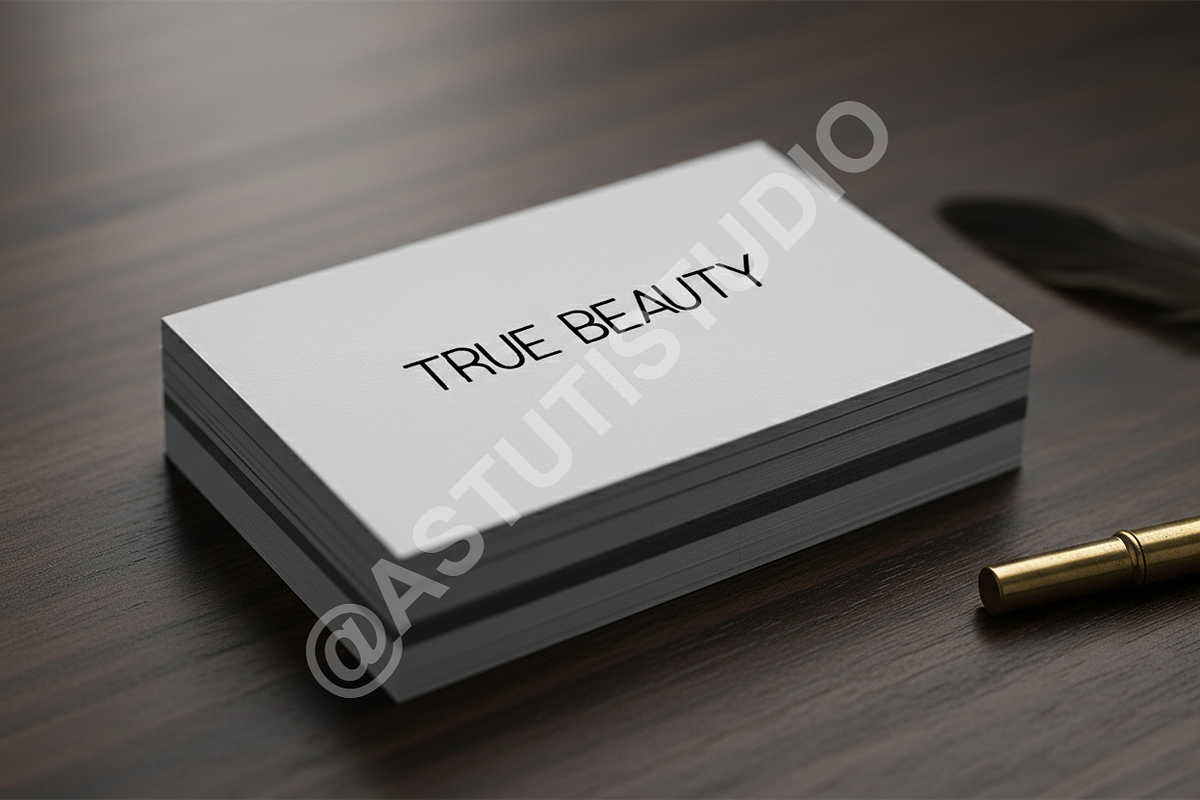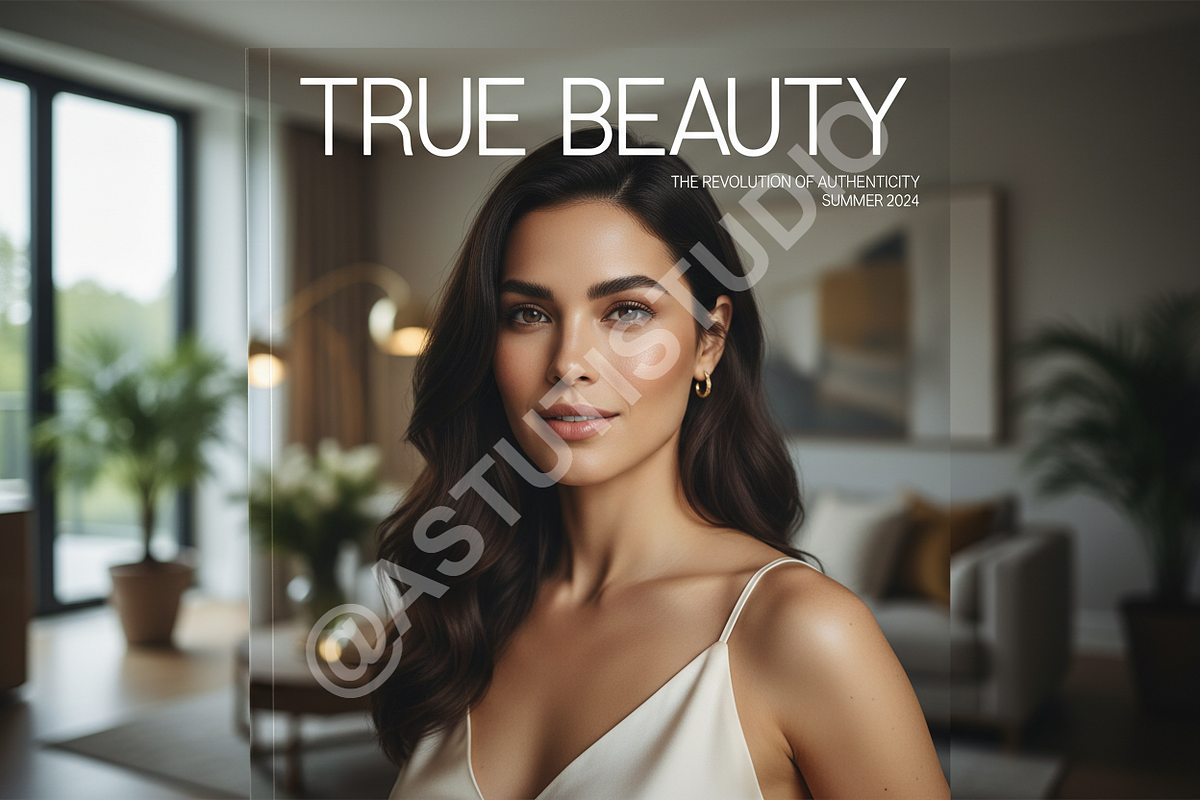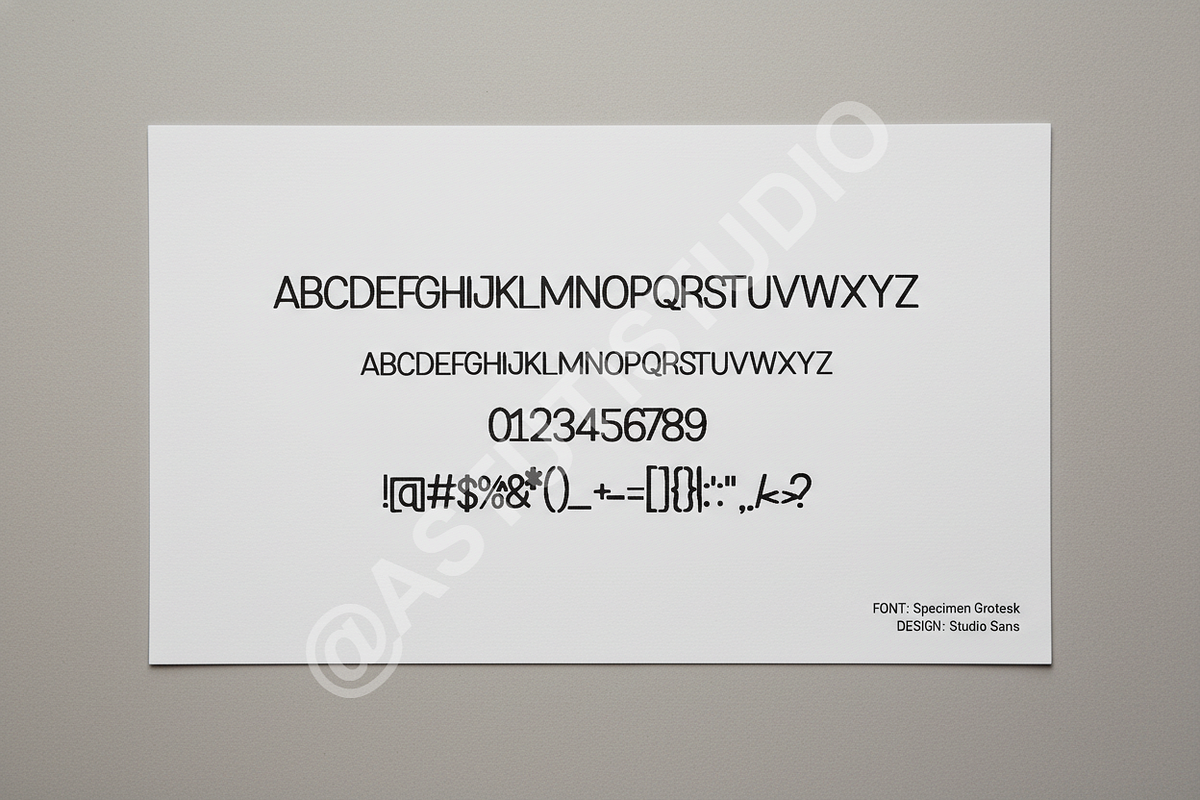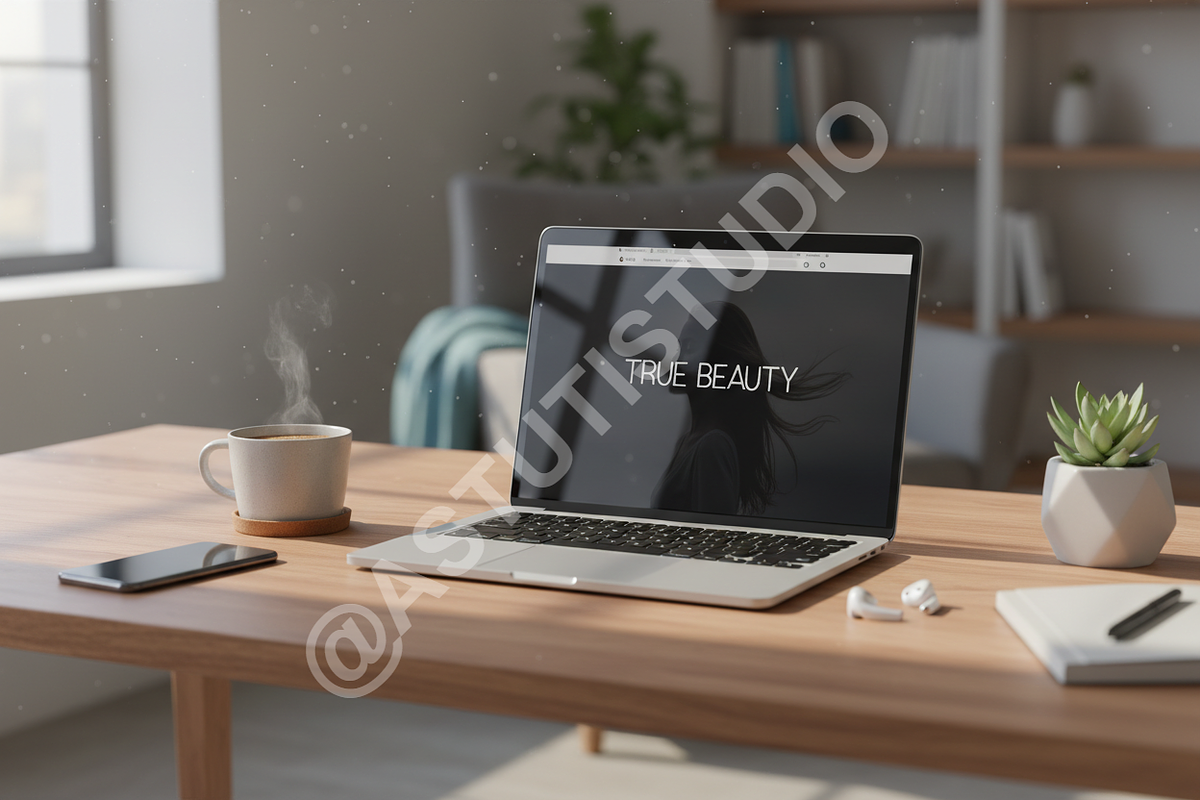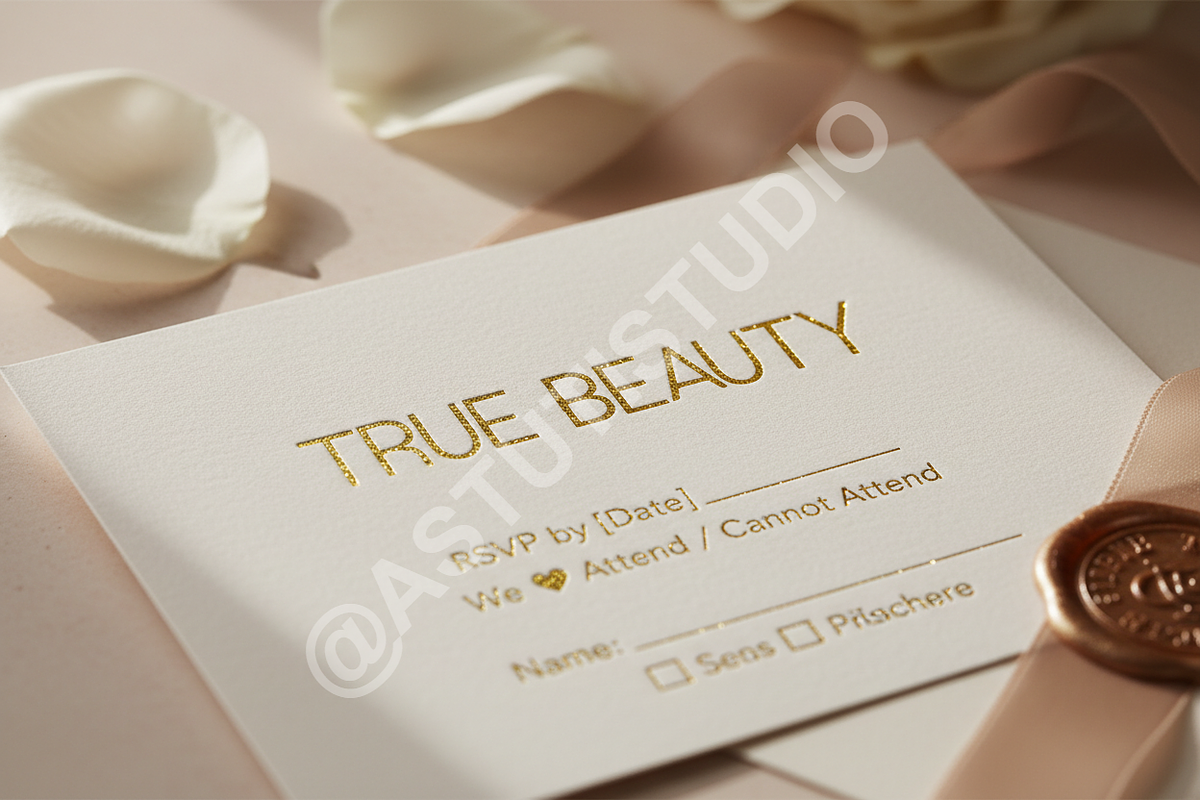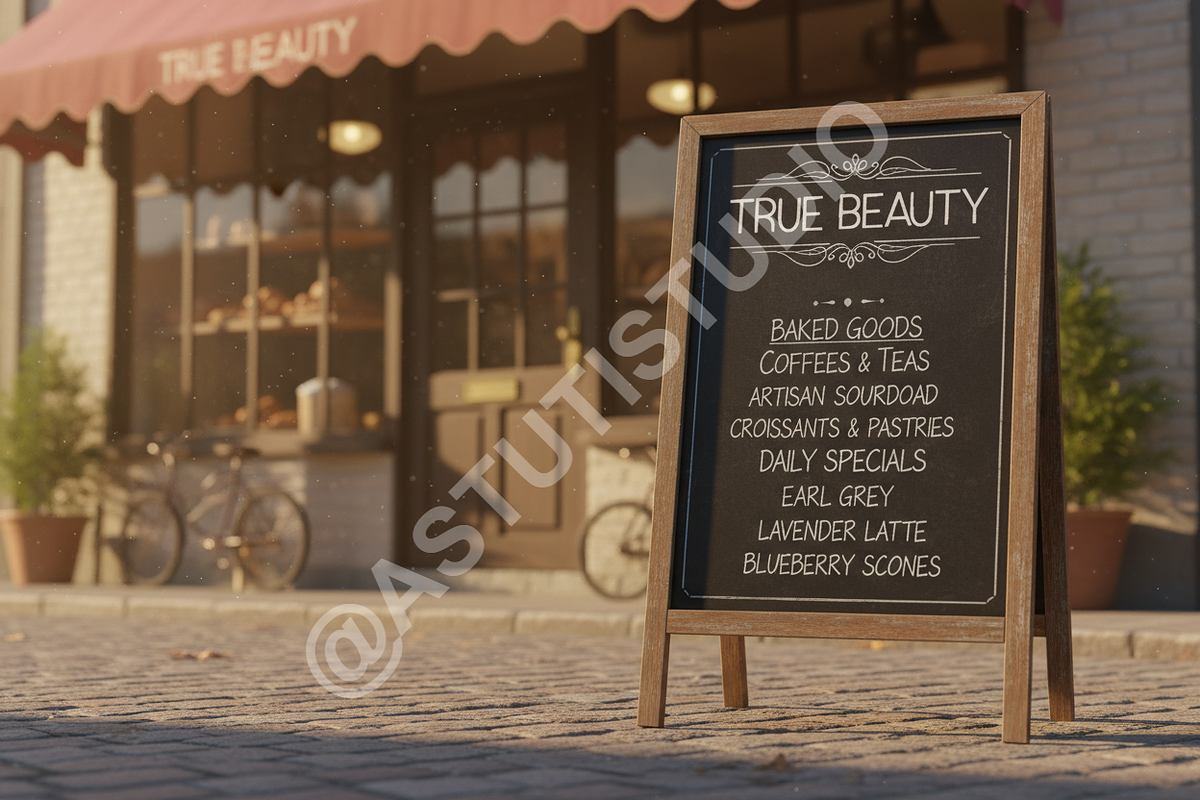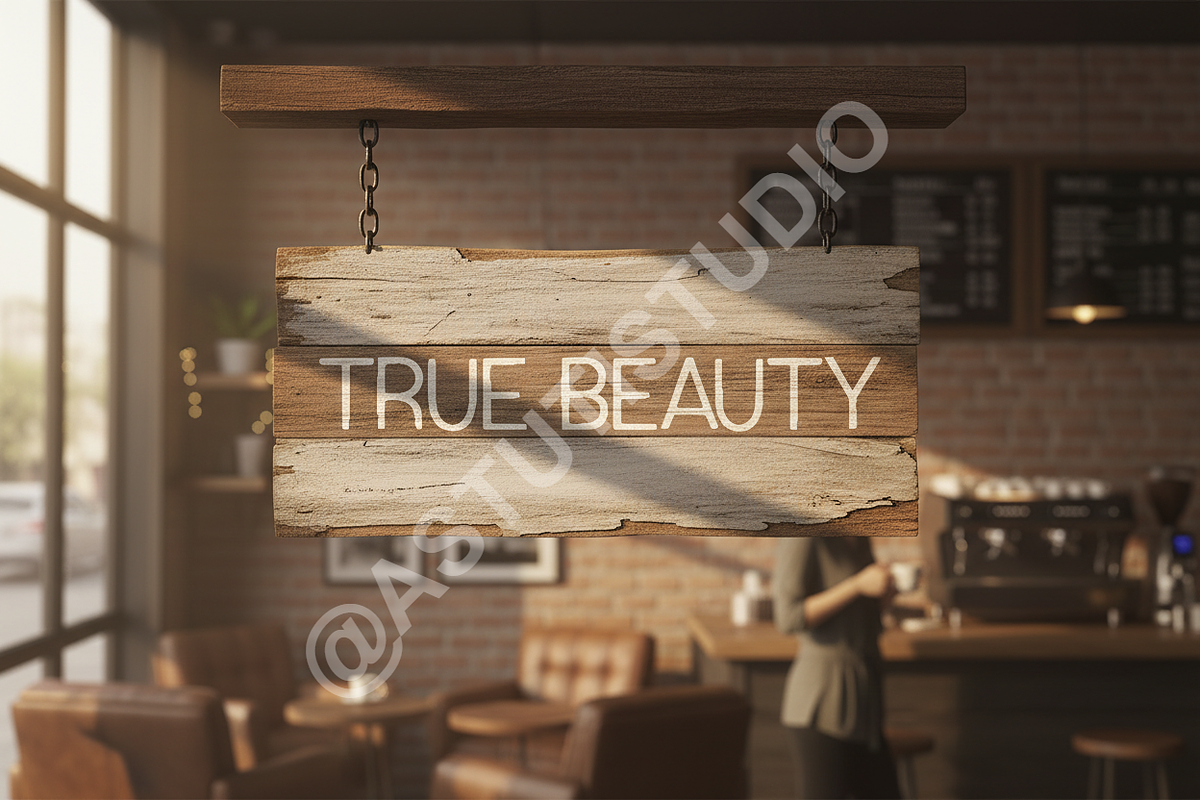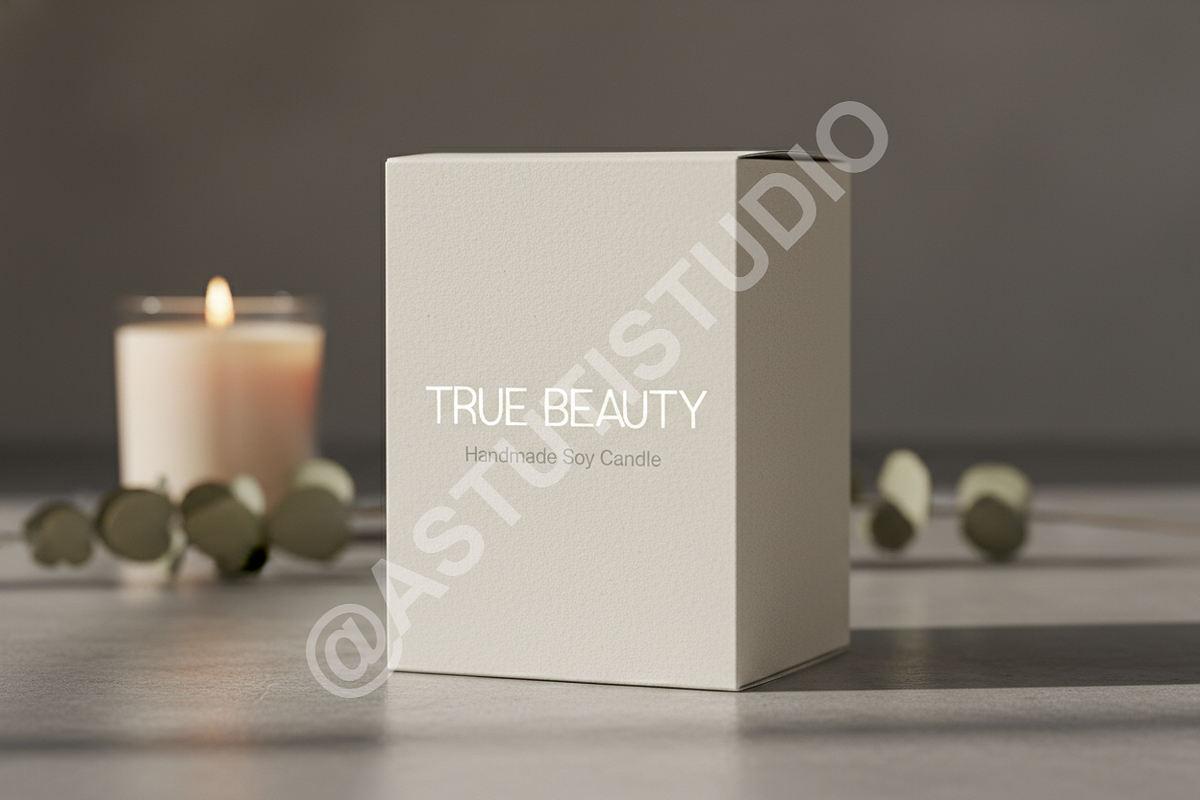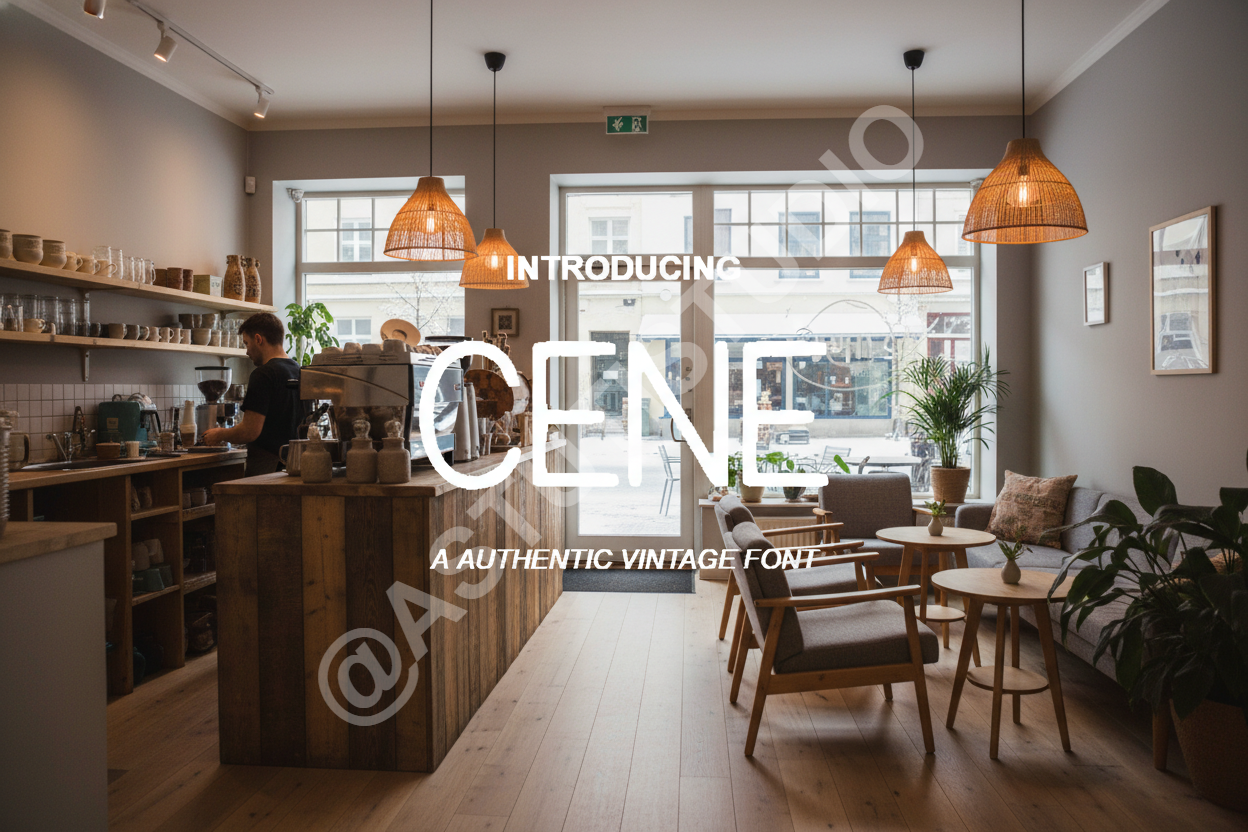
Cene Luxury Modern Serif Font - The
Introducing Cene, a refined modern serif typeface designed for ultimate sophistication. Cene strikes a perfect balance between timeless elegance and contemporary flair, making it the definitive choice for projects demanding prestige and clarity. It is the essential typographic tool for high-end luxury branding, sophisticated editorial design, and polished social media presence.
KEY FEATURES & CAPABILITIES
• Extensive Language Support: Multilingual capabilities for global reach. • OpenType Mastery: Includes standard and discretionary ligatures, contextual alternates, and stylistic sets for unique customization and a distinct aesthetic. • Optimized Readability: Meticulously kerned for exceptional performance in both large display titles and detailed body text, ideal for magazine layouts. • Versatile Weight Range: Includes Thin, Regular, and Bold styles for complete typographic hierarchy. • Precision for Print & Digital: Optimized vector shapes ensure sharp, elegant display across all mediums, from high-resolution screens to luxury print collateral.